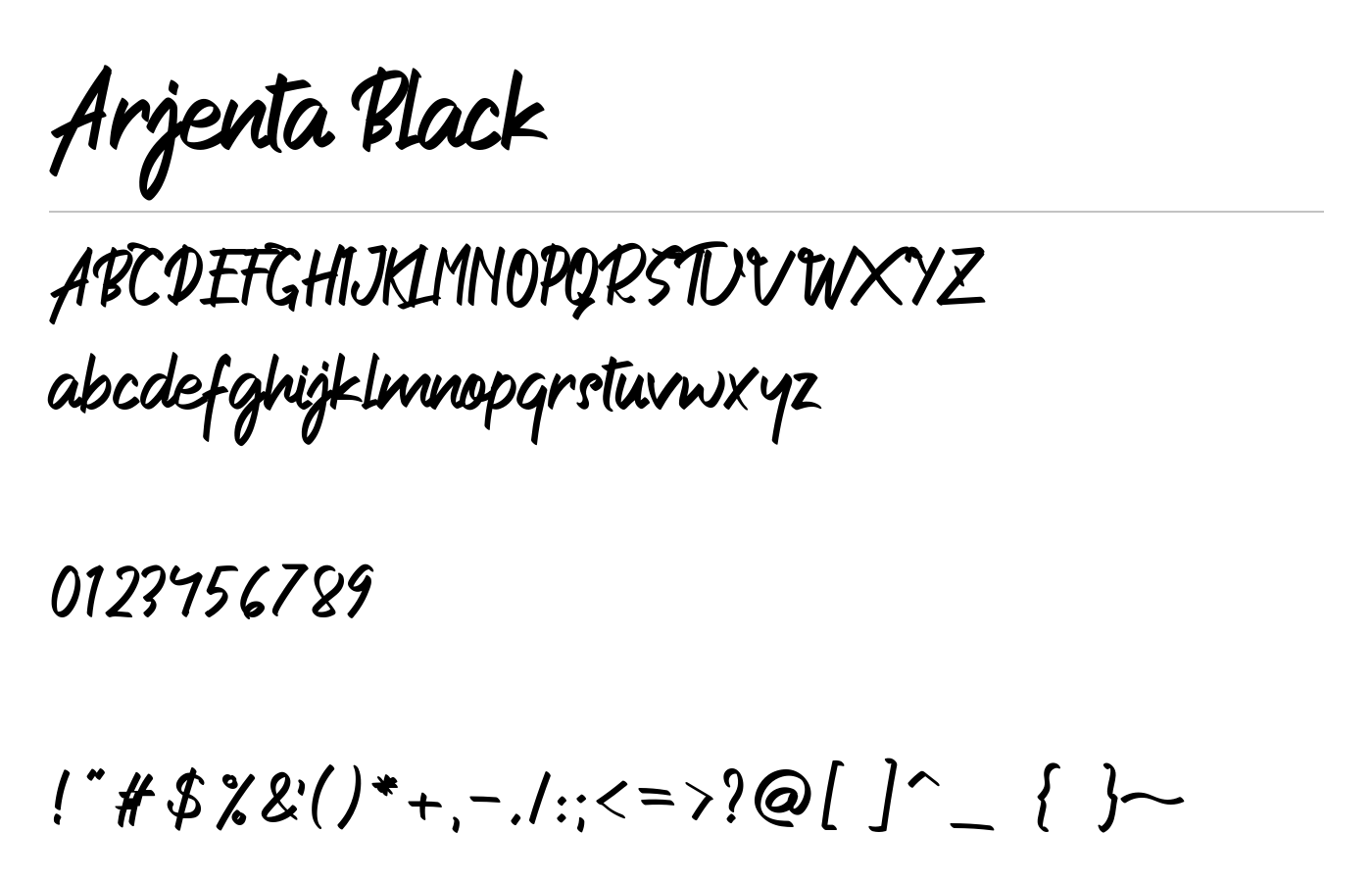
Arjenta Black is a bold, expressive script font that combines a hand-drawn feel with confident, energetic strokes. Its lively curves and irregular shapes give it a casual yet striking personality, making it ideal for creative branding, social media graphics, and eye-catching headlines where a personal, dynamic touch is desired. This font works well in designs that want to communicate originality and a spirited, informal vibe.
Arjenta Black Font
About Arjenta Black Font
| Font family | Arjenta Black Font |
| Designer | Surya Iswandi |